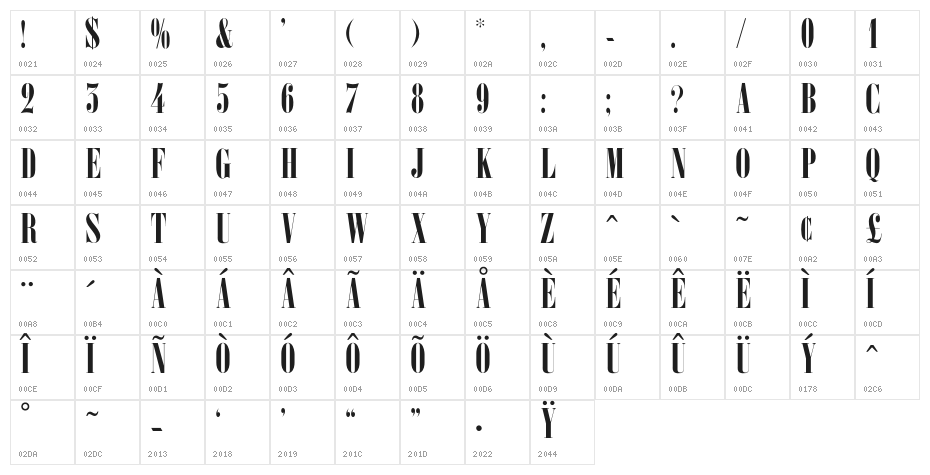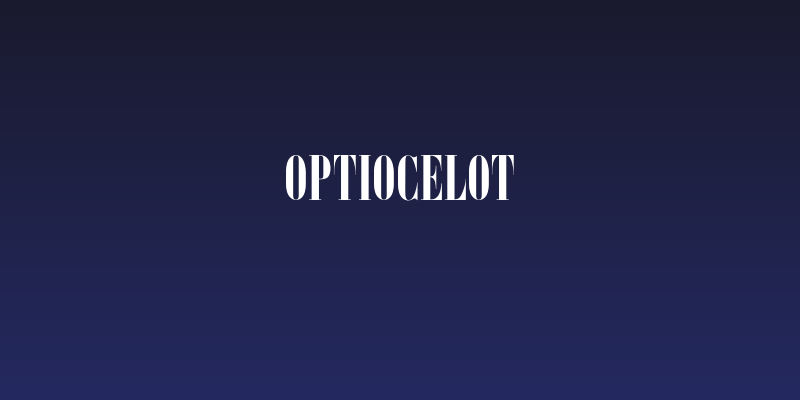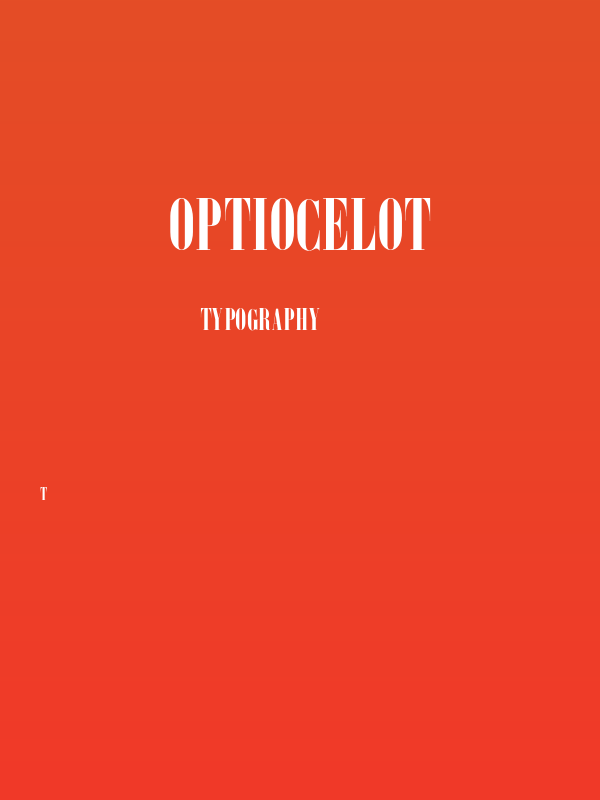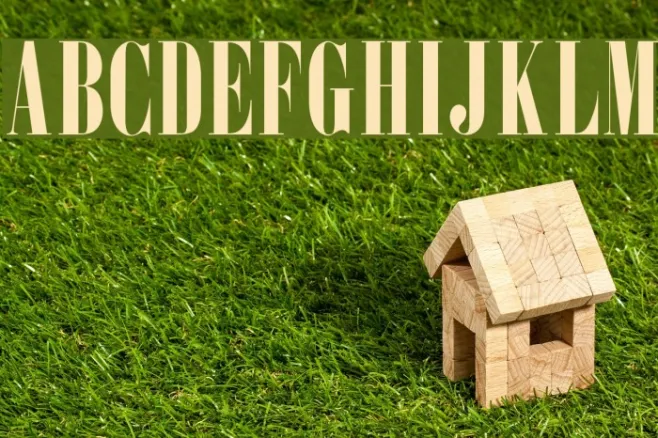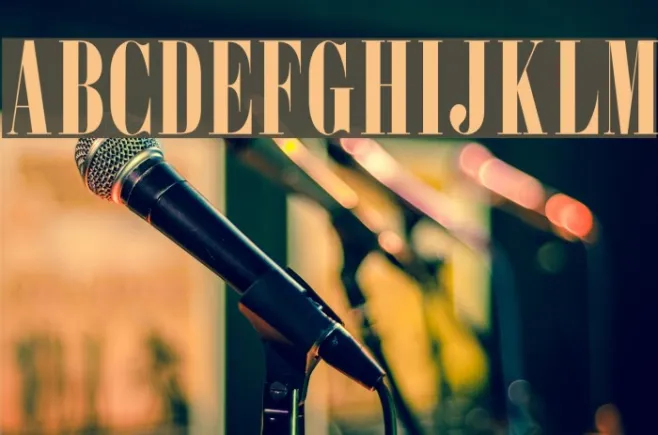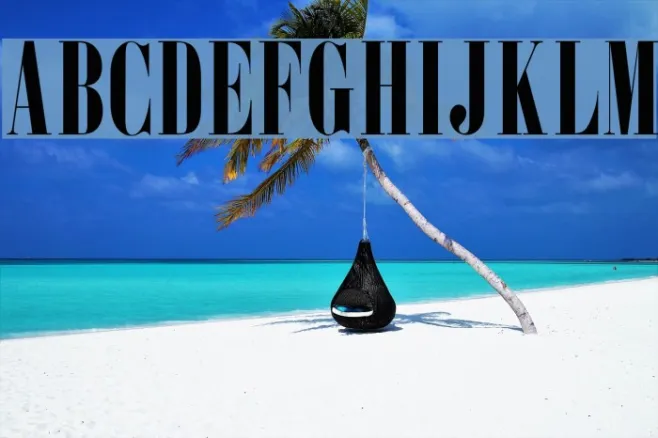
OPTIOcelot Font
OPTIOcelot Description
This font features a bold and striking design with high contrast between thick and thin strokes, giving it a dramatic and elegant appearance. The uppercase letters are tall and narrow, with sharp serifs that add a touch of sophistication. The numerals and special characters maintain the same boldness, ensuring consistency across all elements. This font is perfect for making a statement, with its eye-catching style that demands attention. The overall design is both modern and classic, making it versatile for various applications.
| Proposed Projects | Ideal for luxury branding, magazine headlines, posters, and elegant invitations. |